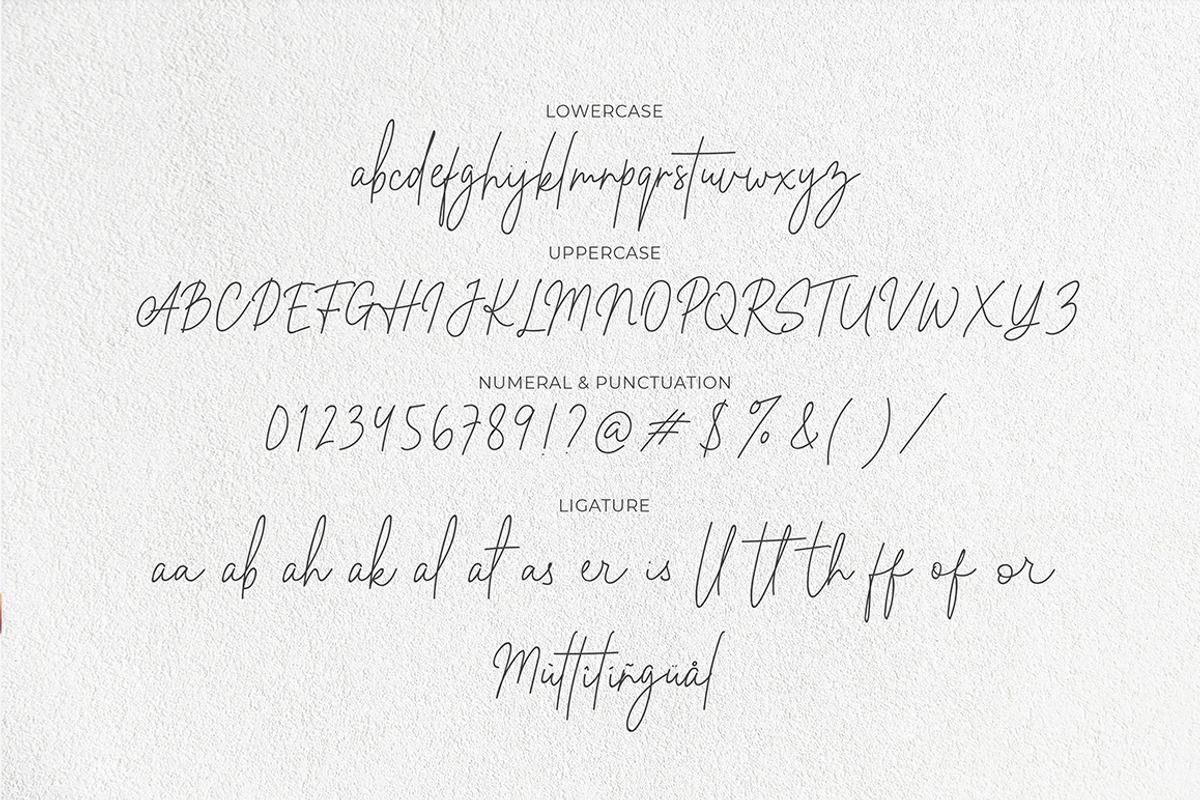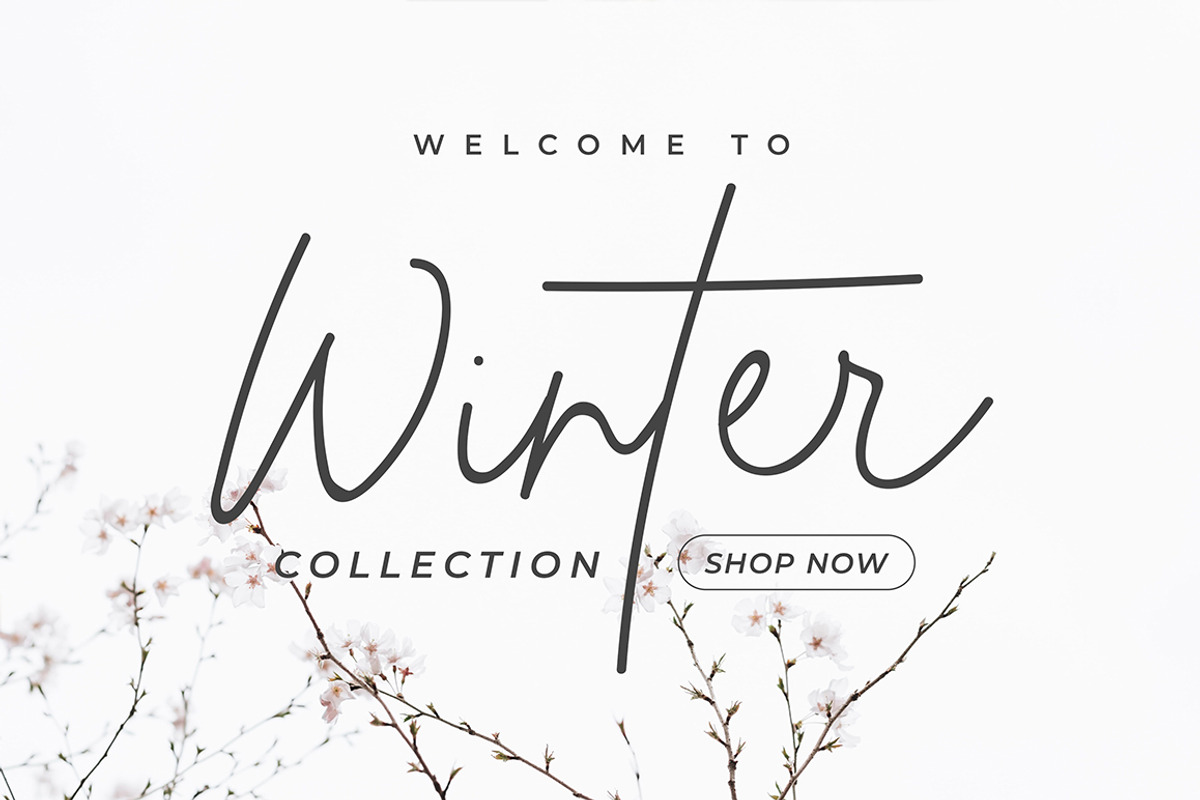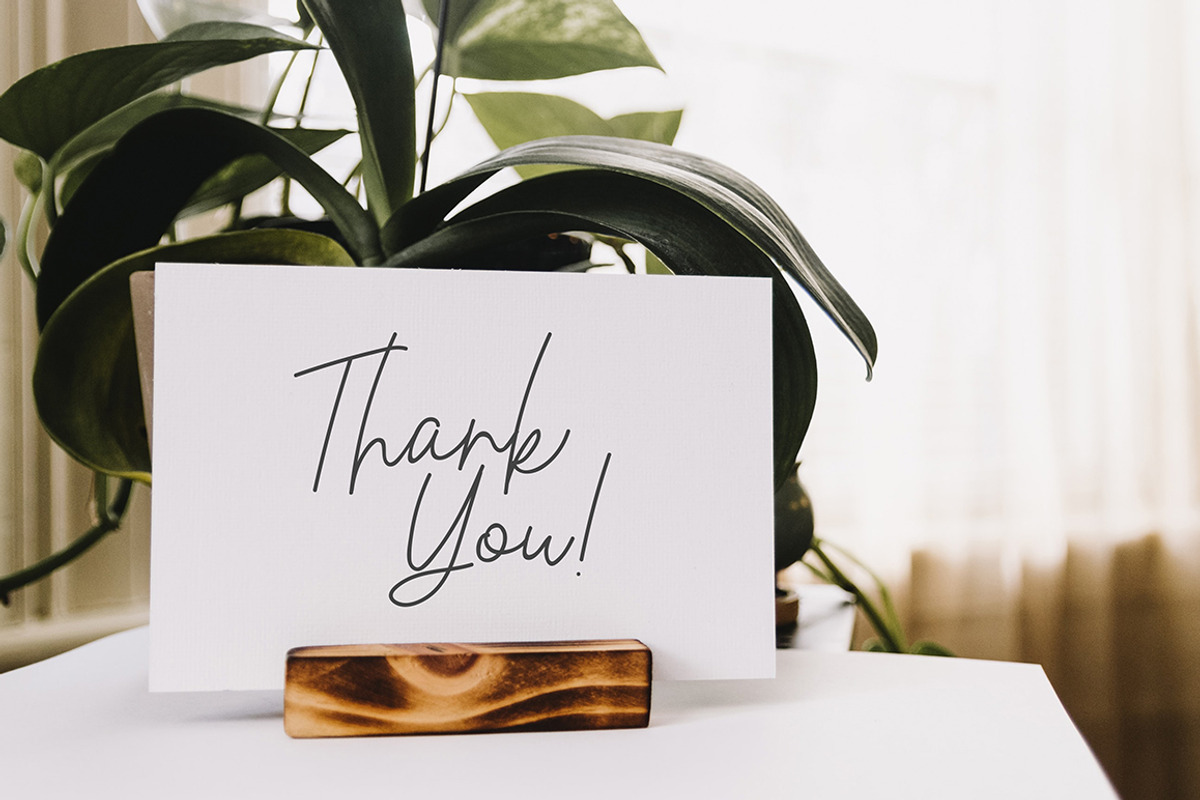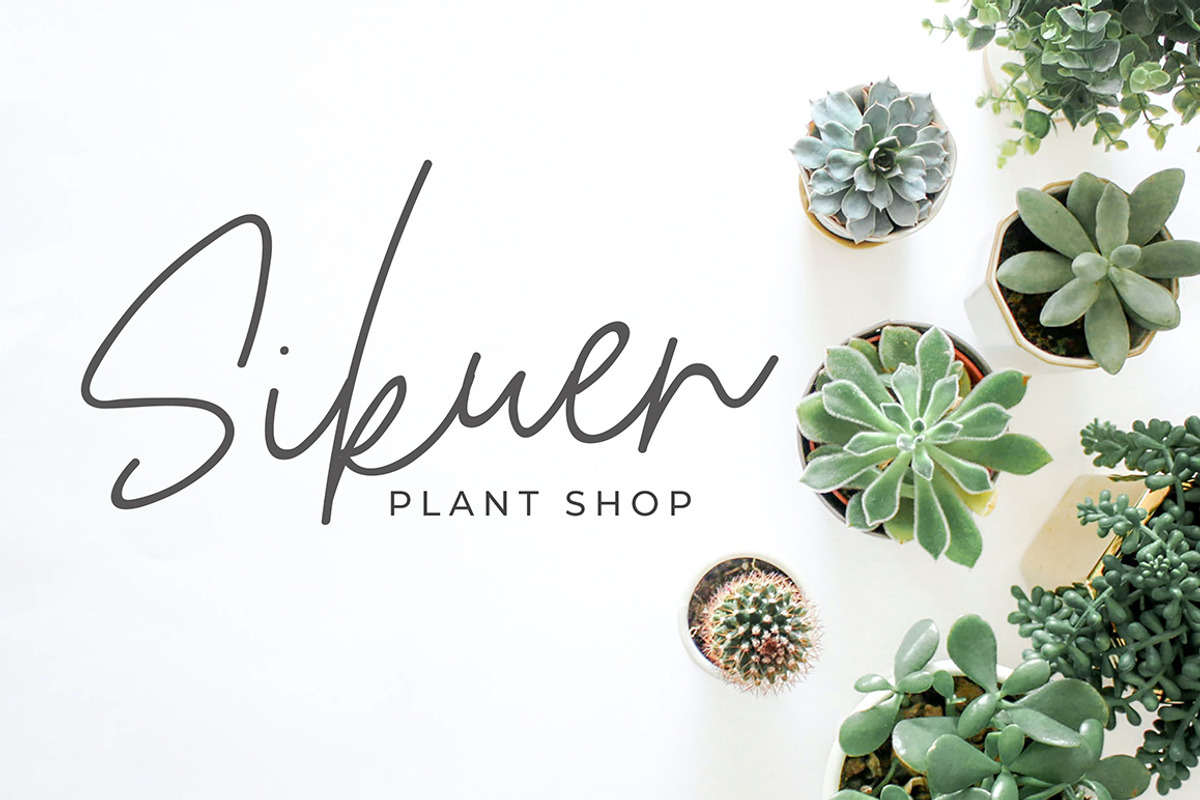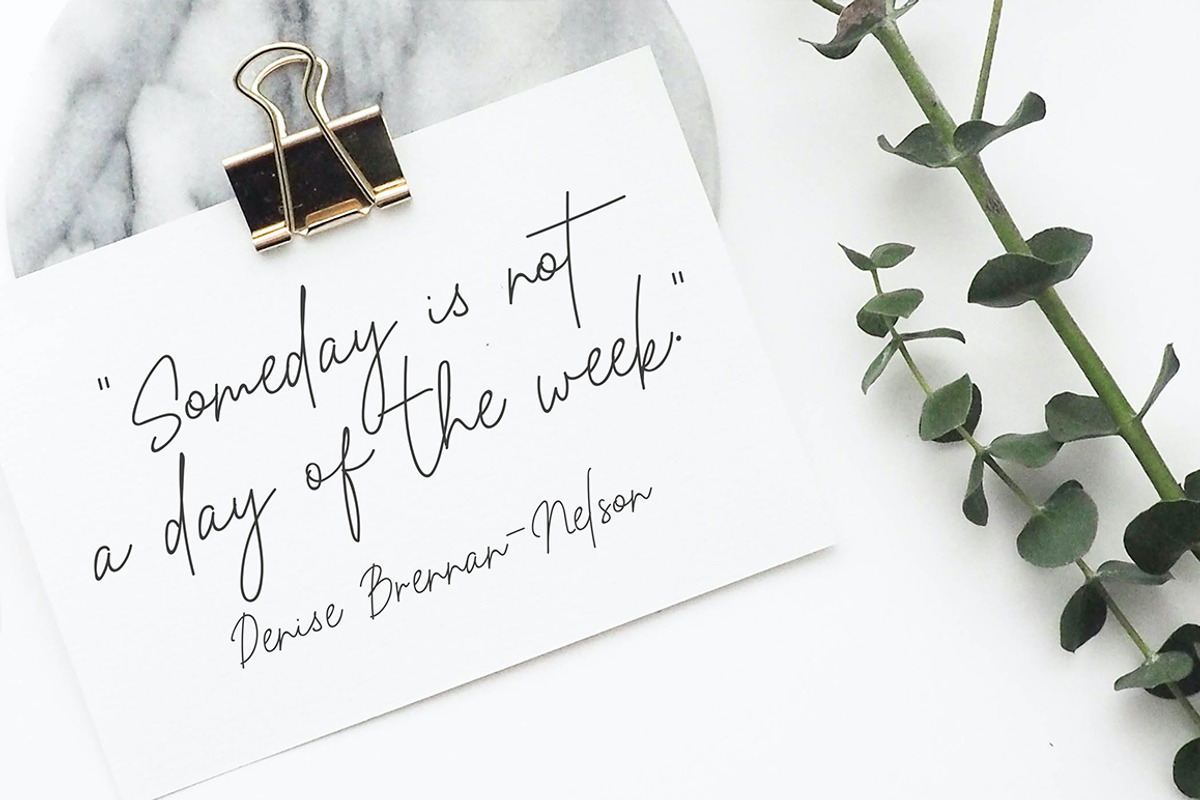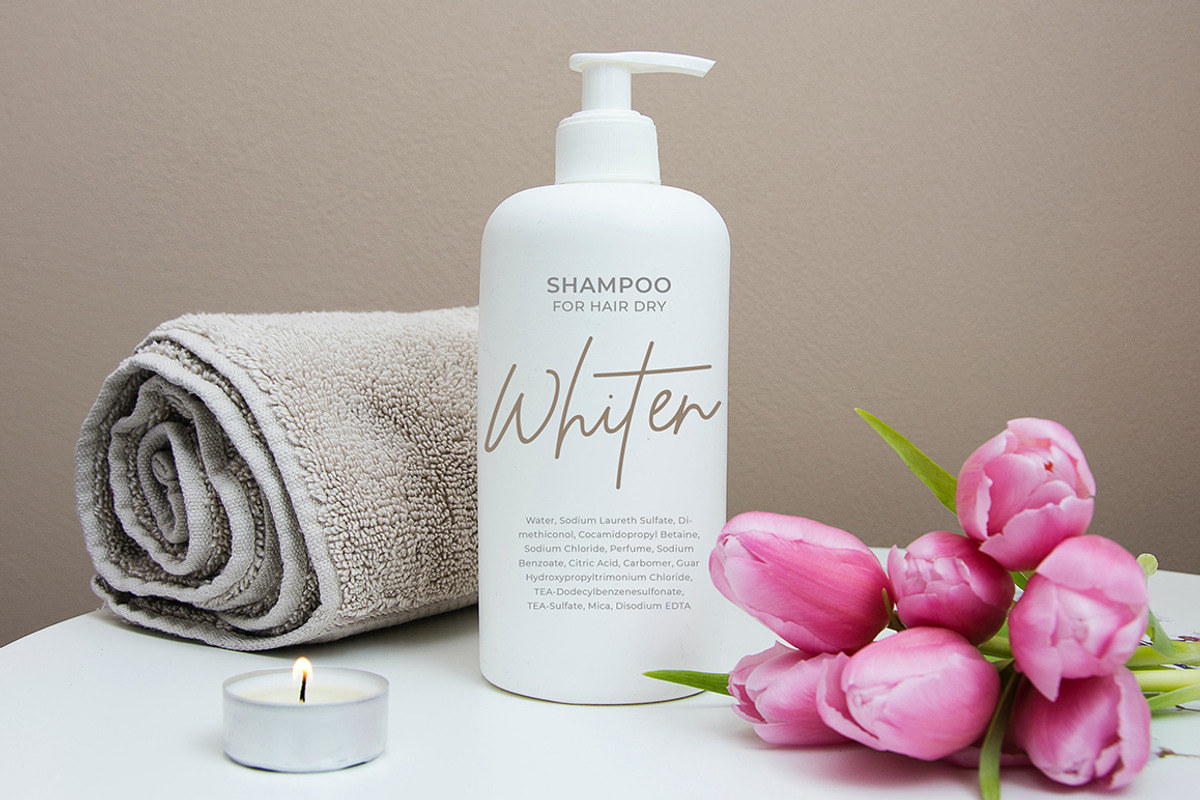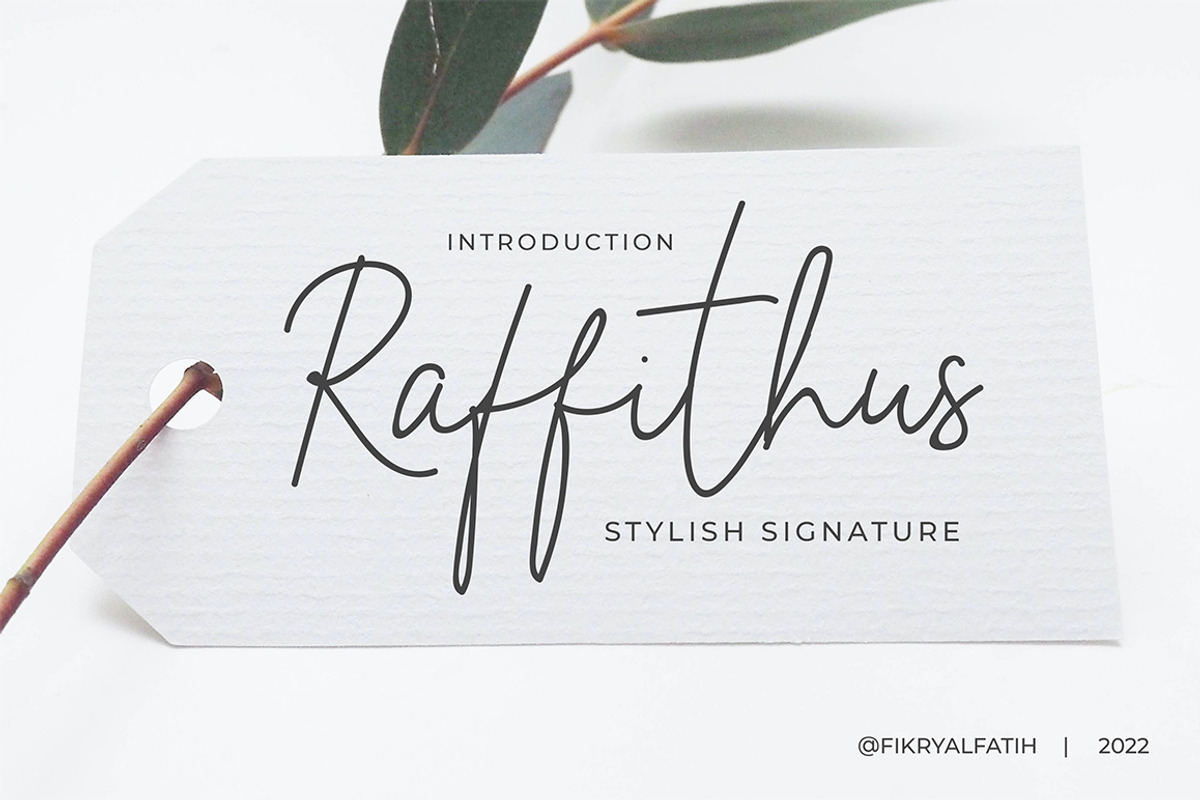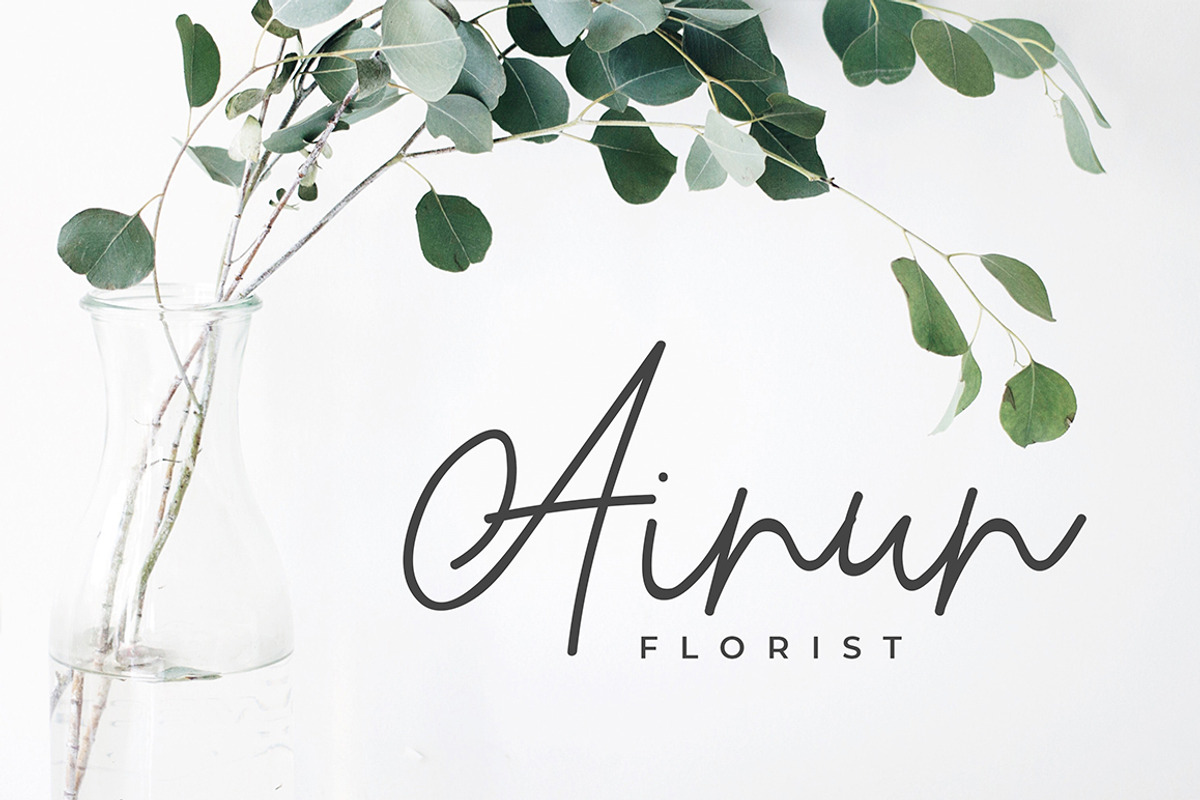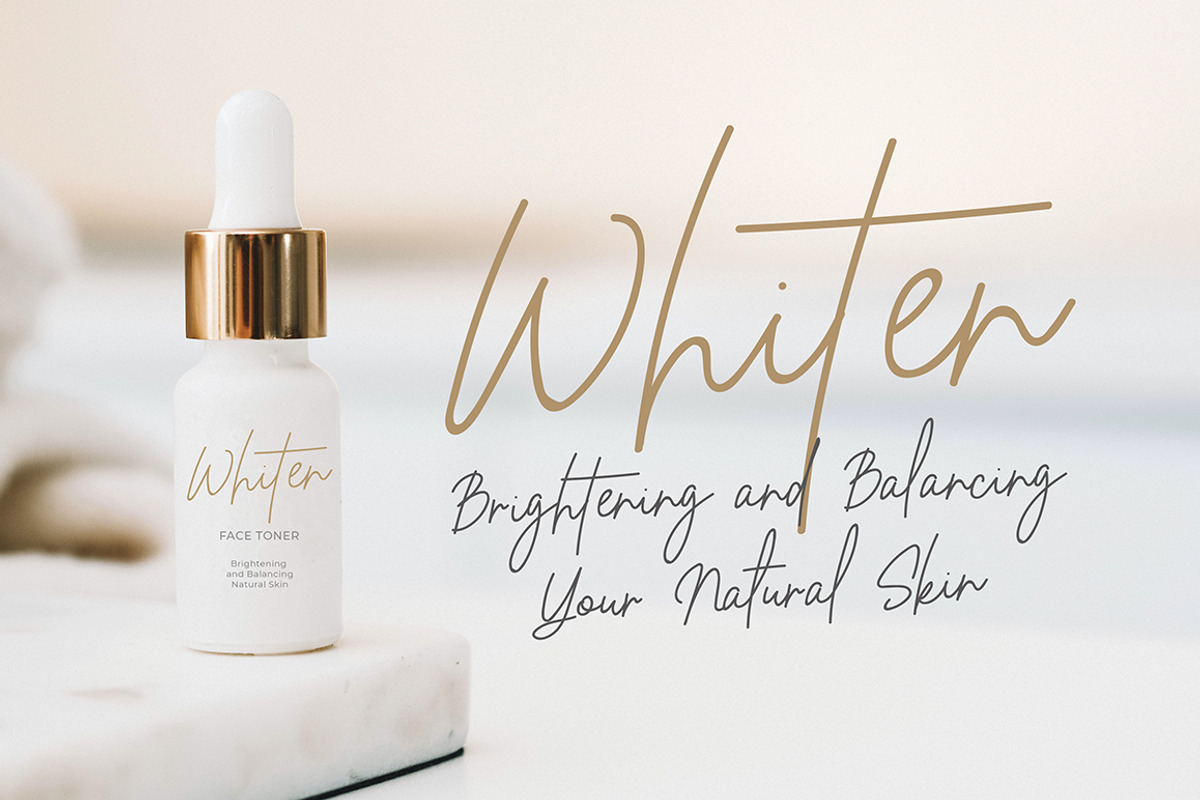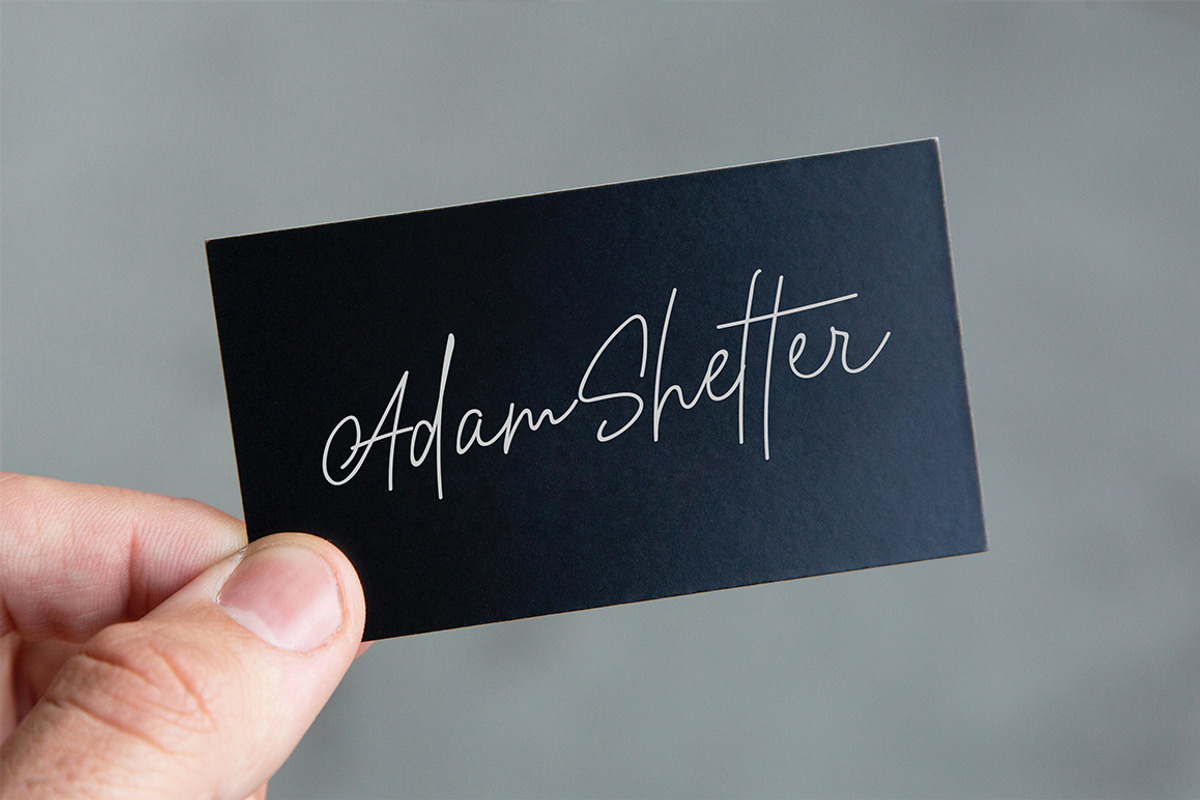
Raffithus Stylish Signature Font
Raffithus is a handwritten signature font with a calligraphy flair, described by an elegant touch, perfect for your favorite projects. It looks stunning on handwritten-style logos, wedding invitations, modern websites, quotes, business cards, packaging and every other design which needs a handwritten touch, and more.
- Numbers and Punctuation